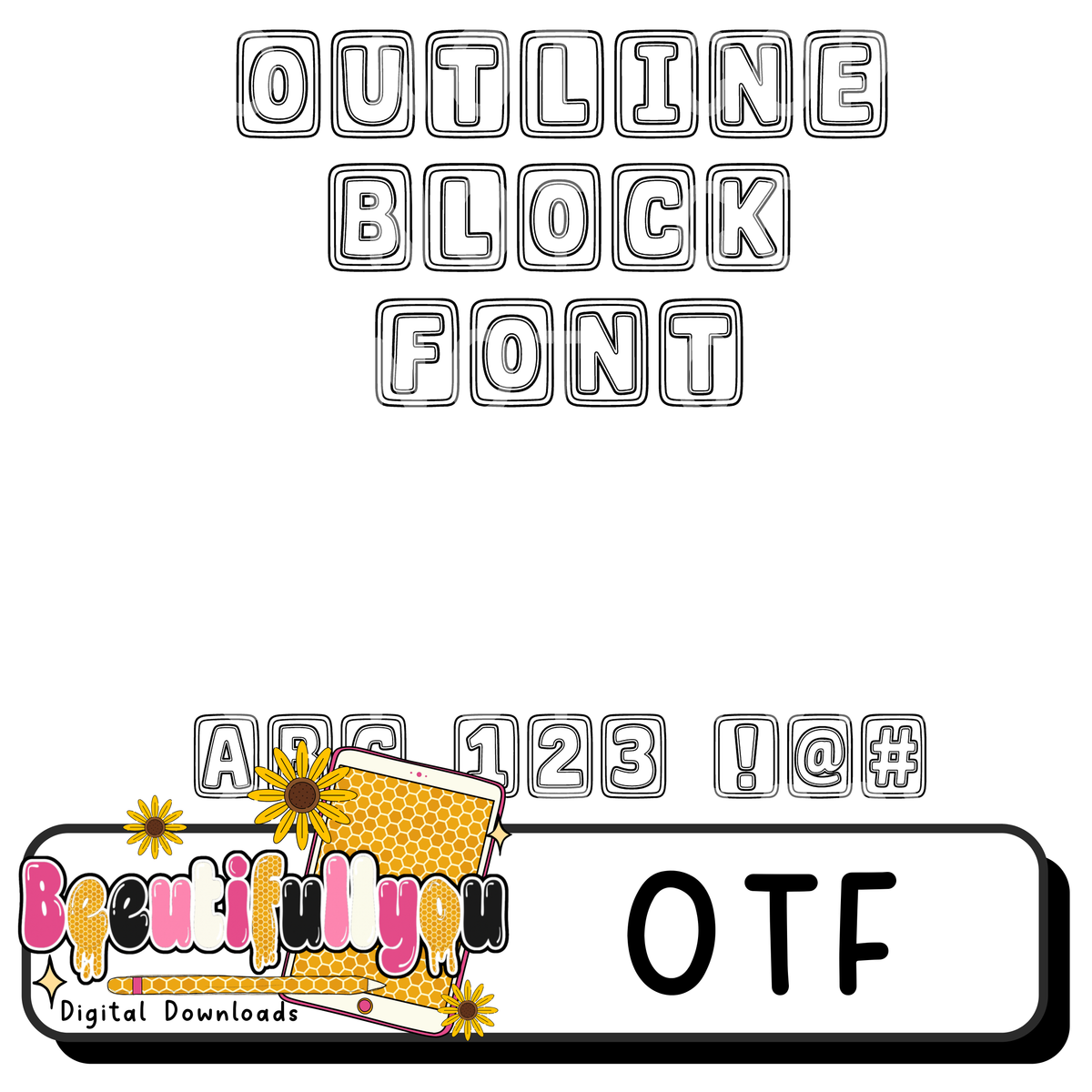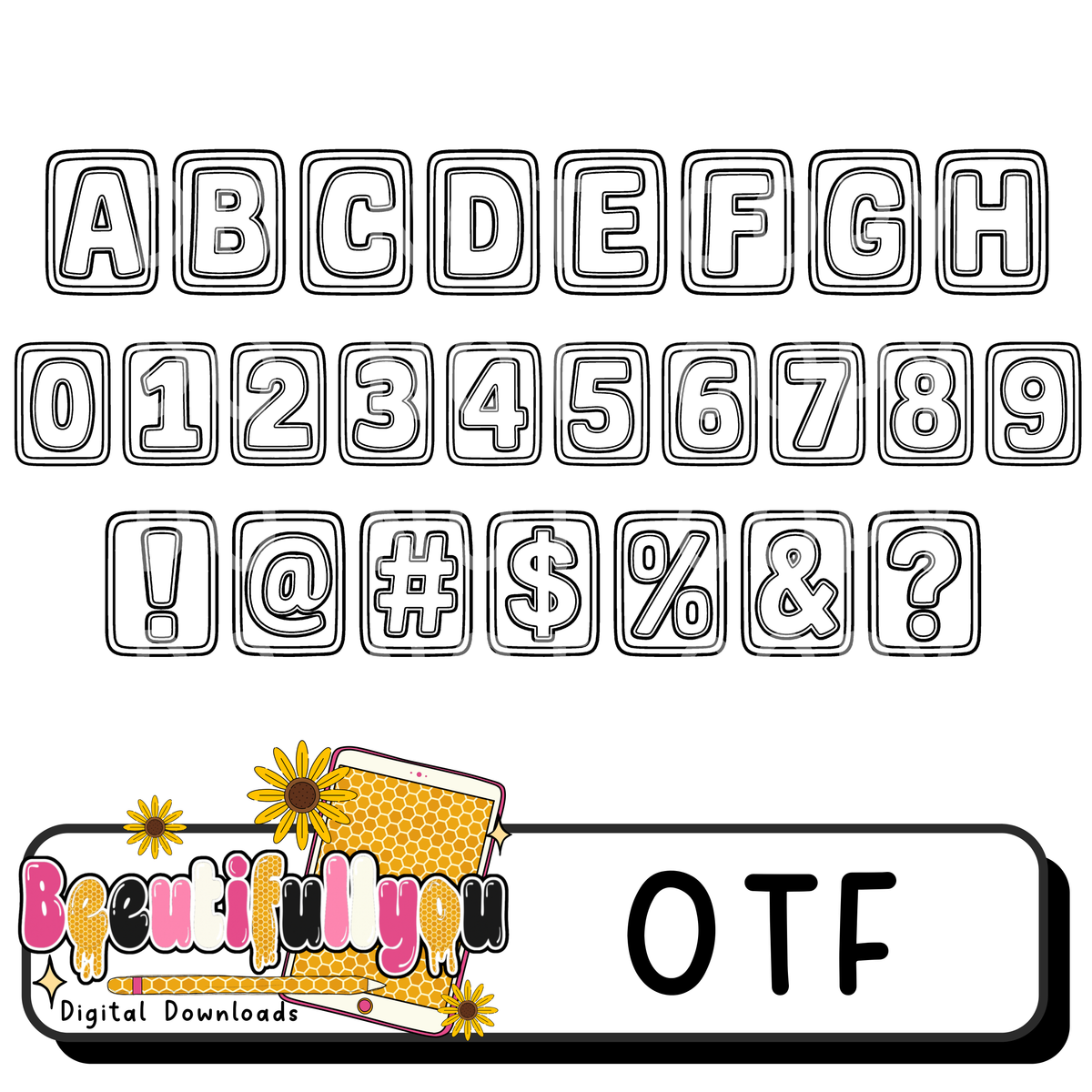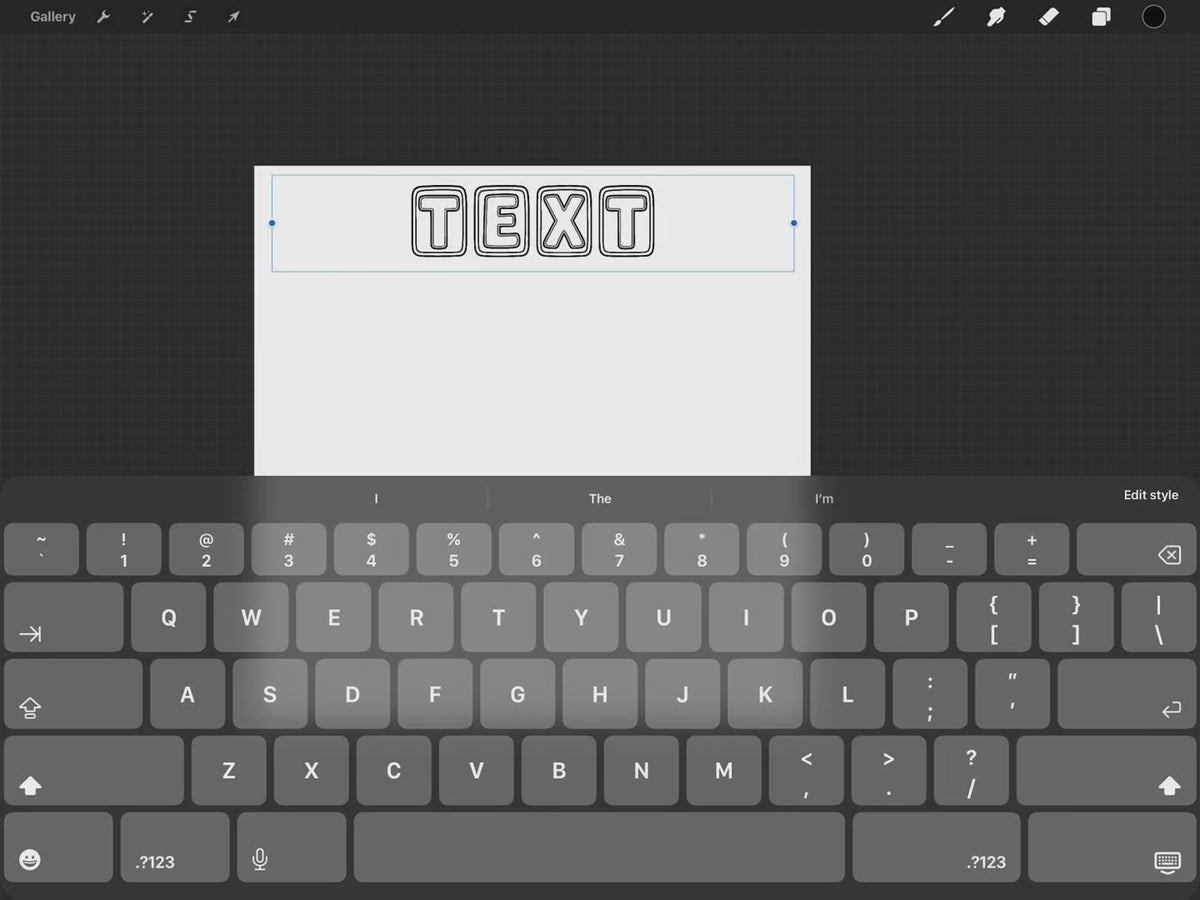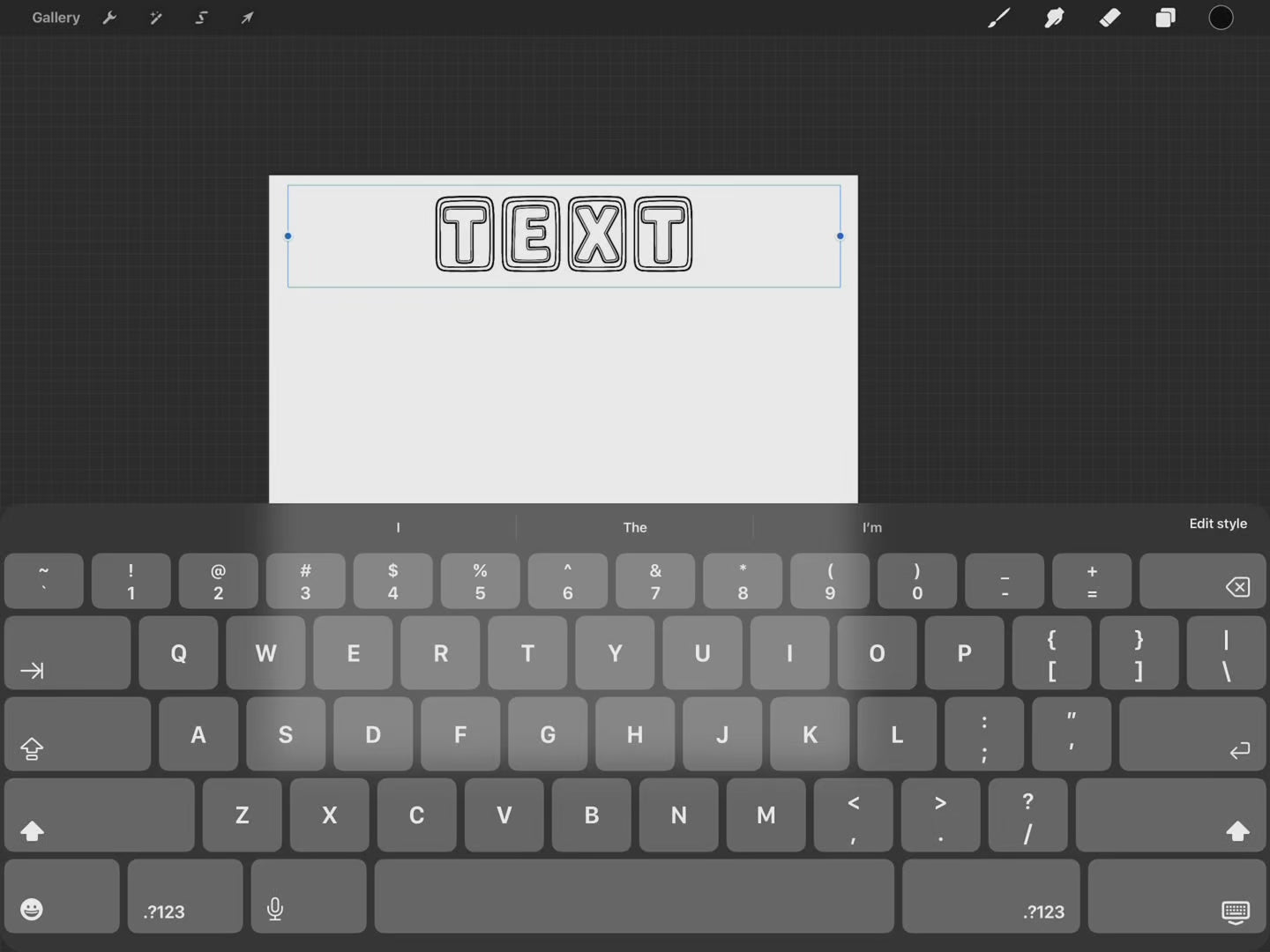
Create fun, bold text with this outline tile font in OTF format.
This font features chunky rounded letters and numbers, each sitting inside its own rounded tile shape with layered outline detail. It has a playful, clean look that works great for kids designs, school themes, retro graphics, stickers, shirts, sublimation, party designs, classroom projects, and more.
Because it is an outline style font, it is also perfect for coloring in, pattern fills, digital design work, and creating your own custom finished graphics.
- Uppercase letters A to Z
- Numbers 0 to 9
- Symbols ! @ # $ % & ?
Font Style
- Rounded tile letter style
- Double outline look
- Clean, playful, bold lettering
- Great for coloring, fills, and layered design looks